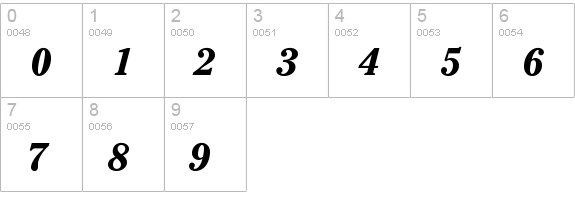
CheltenhamEF-BoldItalic Font Details
CheltenhamEF-BoldItalic is a dynamic and versatile font that exudes elegance and sophistication. With its bold and italic styling, this font is perfect for adding a touch of flair to any design project. Whether you are working on a branding campaign, a website design, or a print advertisement, CheltenhamEF-BoldItalic is sure to make a bold statement. The beauty of CheltenhamEF-BoldItalic is that it combines the classic charm of the Cheltenham font family with a modern twist, creating a unique and eye-catching look. Its stylish curves and elegant serifs add a touch of class to any text, making it the perfect choice for headings, titles, and other prominent text elements. Best of all, CheltenhamEF-BoldItalic is available for free download at FontsMarket.com. This means that you can easily access this stunning font and incorporate it into your designs without breaking the bank. Don't miss out on the opportunity to elevate your projects with the timeless beauty of CheltenhamEF-BoldItalic - download it today and see the difference it can make!